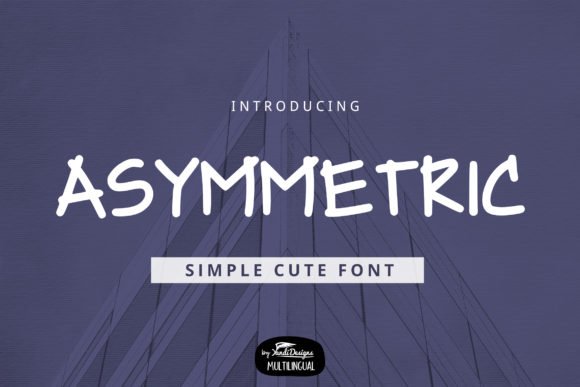
Introduction to Asymmetric Font
Asymmetric is a simple and cute display font.
This original look will appeal to a wide range of crafty ideas, from letterheads and titles, to stationery .
Why Choose Asymmetric Font?
Asymmetric Font offers exceptional quality and versatility, making it a valuable addition to your design toolkit. Whether you’re creating for personal projects or commercial use, Asymmetric Font delivers professional results.